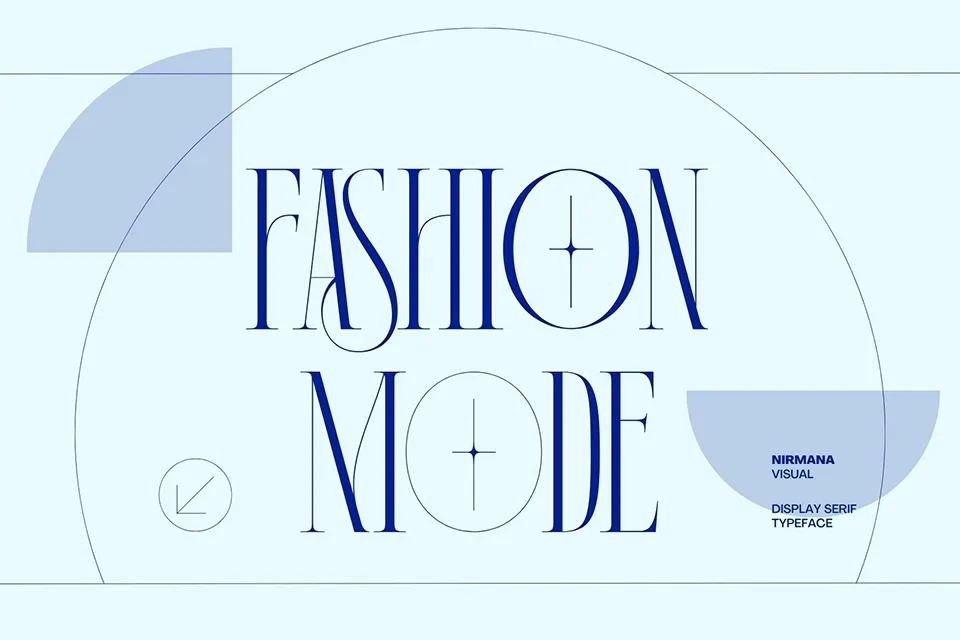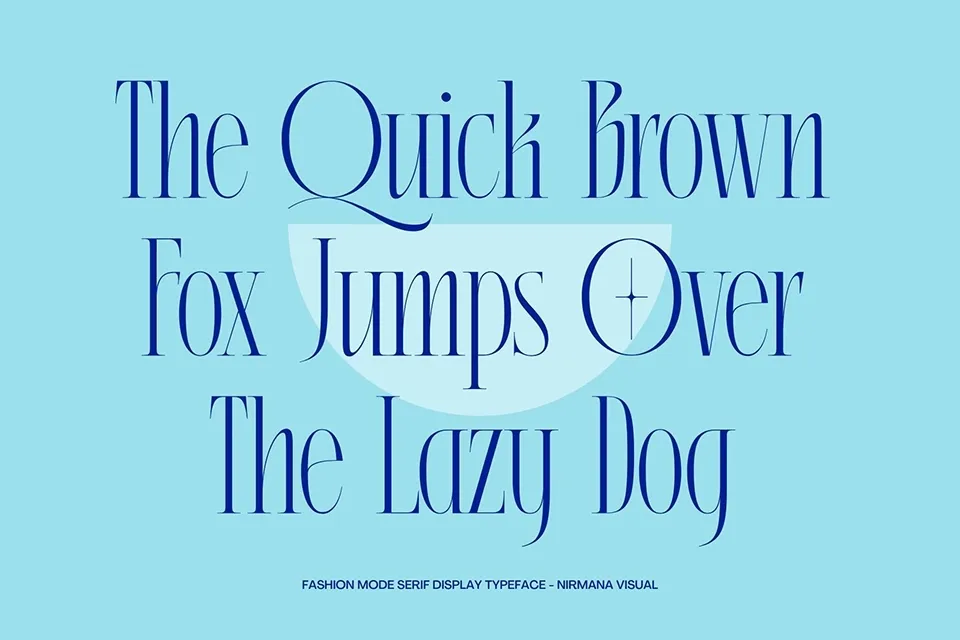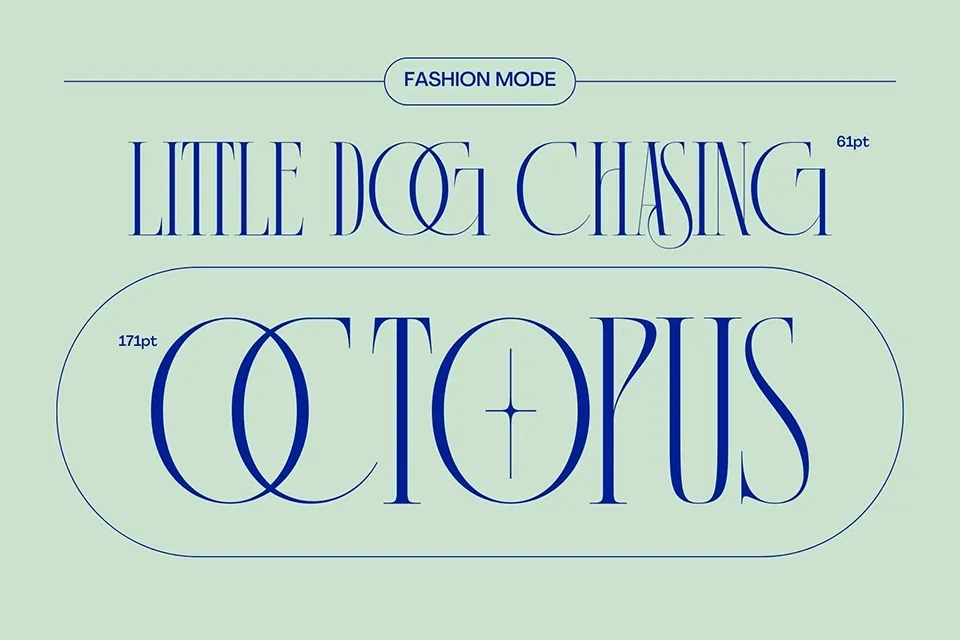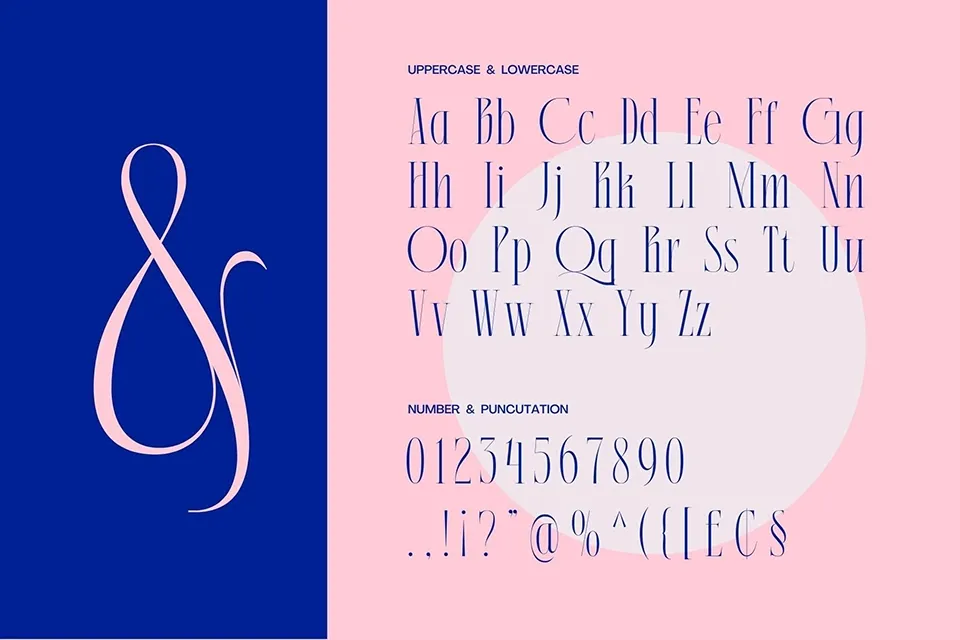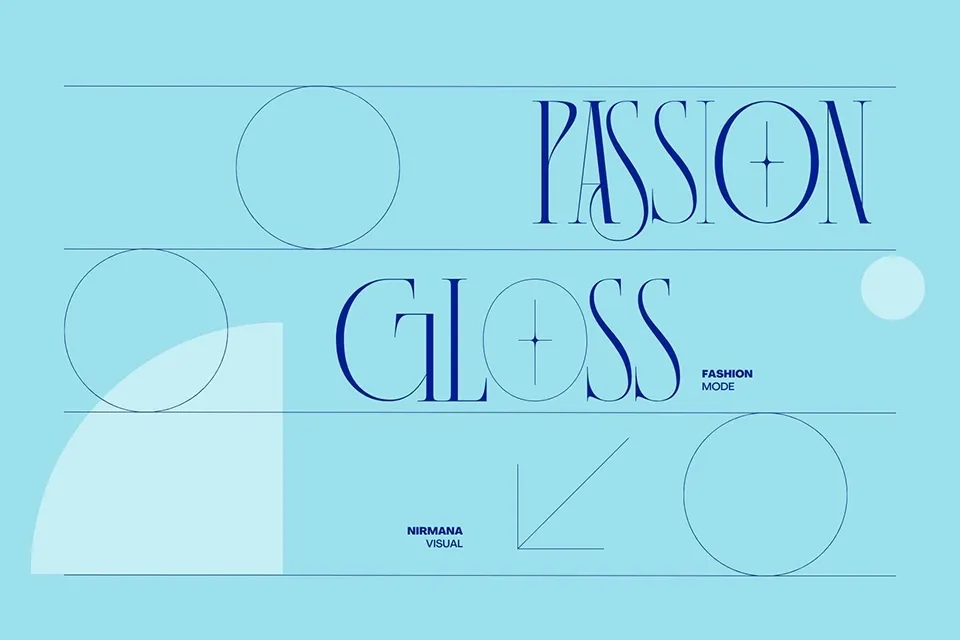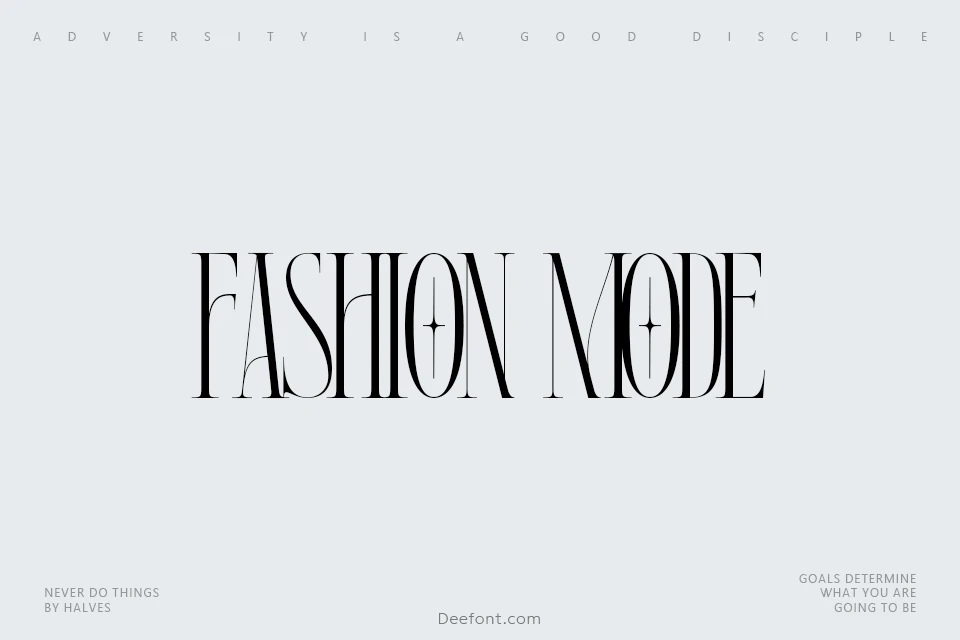
Fashion Mode Font
Fashion Mode Font is a modern display serif typeface inspired by the Renaissance era, offering beautiful typographic harmony for a diversity of design projects. Its elegant, high-contrast letterforms make it ideal for logos, branding, social media posts, advertisements, and product designs. With a nostalgic yet contemporary feel, Fashion Mode brings sophistication and style to any creative endeavor.